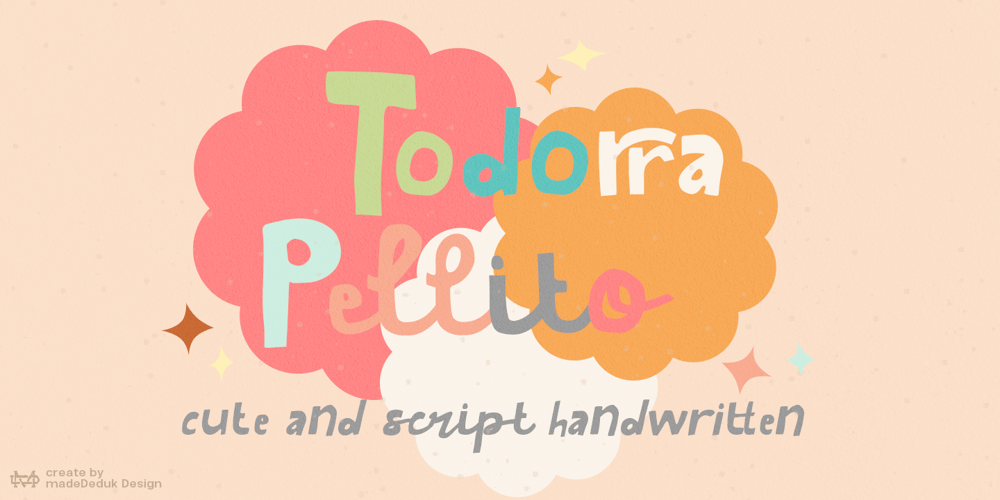
Todorra Pellito Font Family was designed by madededuk and published by madeDeduk. Todorra Pellito contains 2 styles and family package options. Todorra Pellito is a cute font with a matching script and regular and will makes this font suitable for your any project design.Feature Uppercase & Lowercase Number & Symbol International Glyphs Multilingual support ligature Feel free to drop us a message any time and follow my shop for upcoming updatesHope you enjoy it.